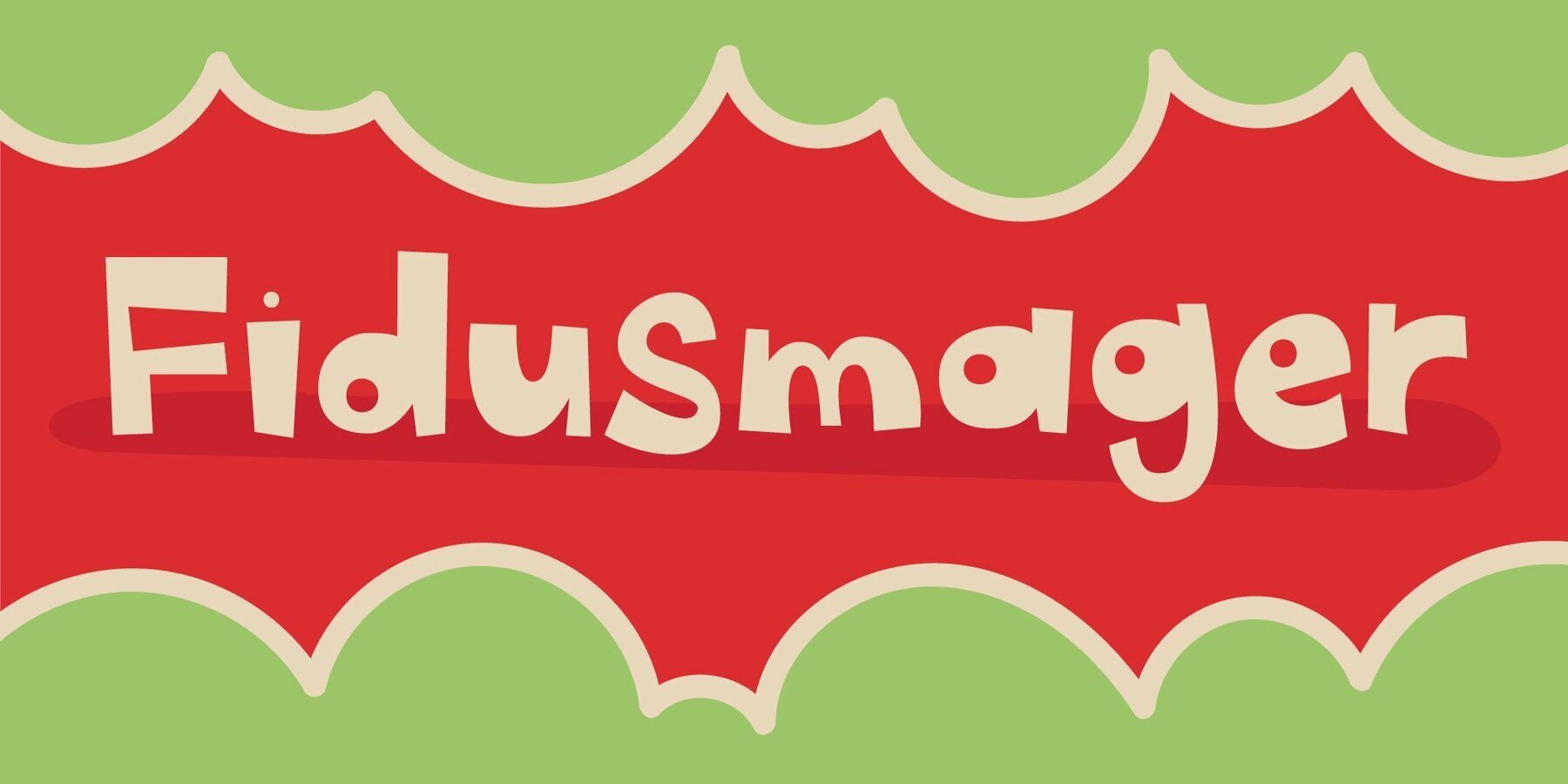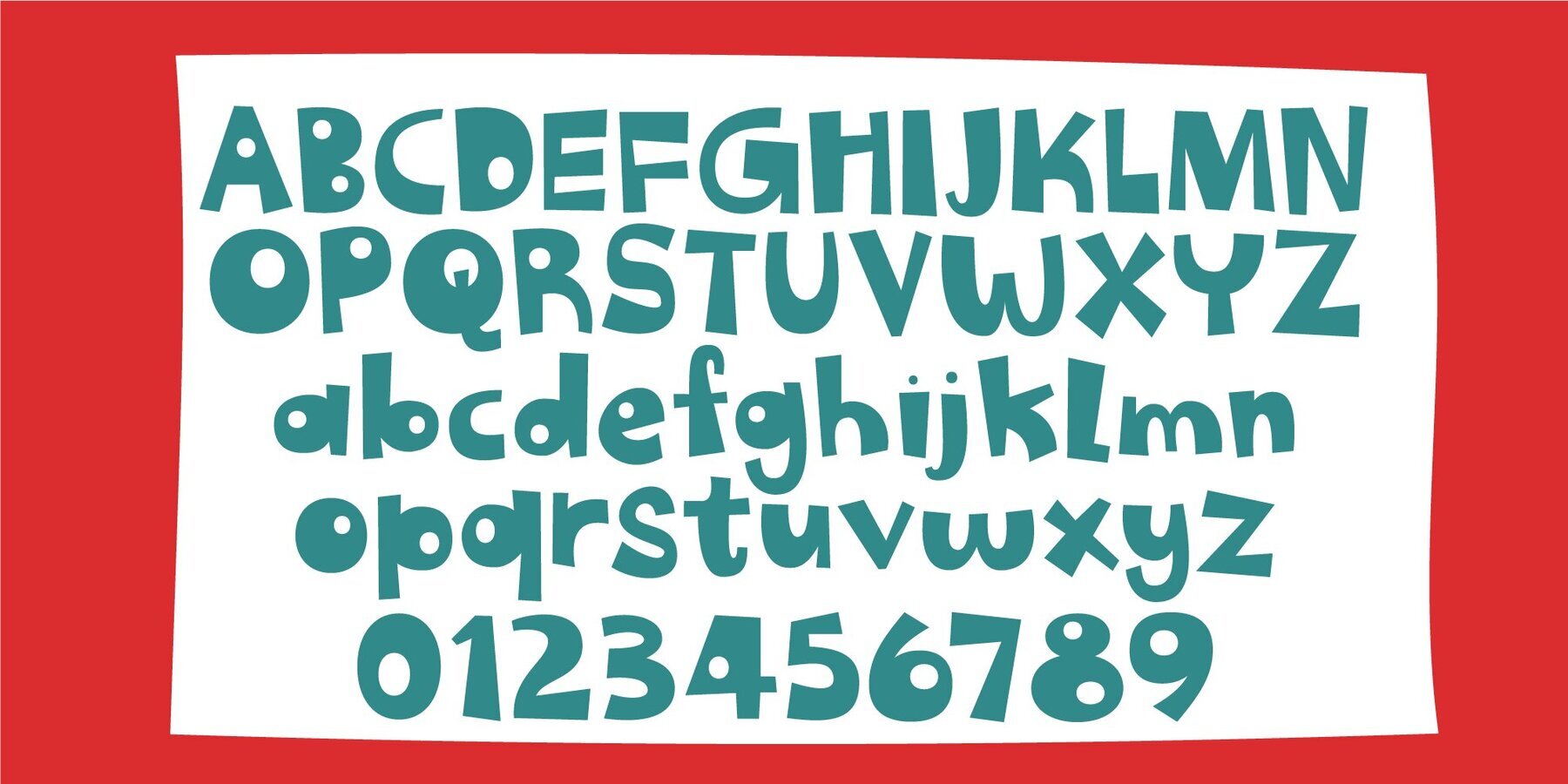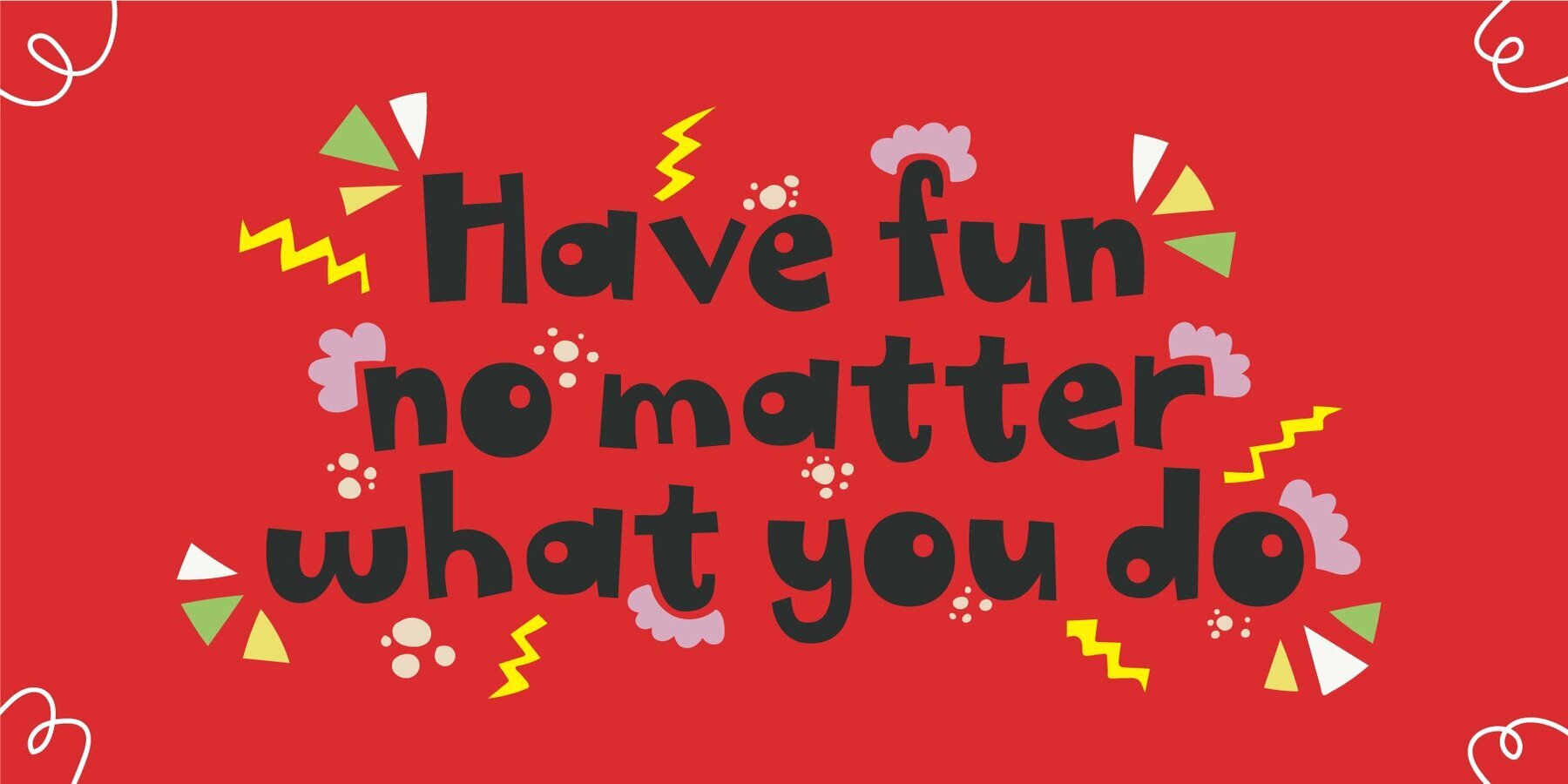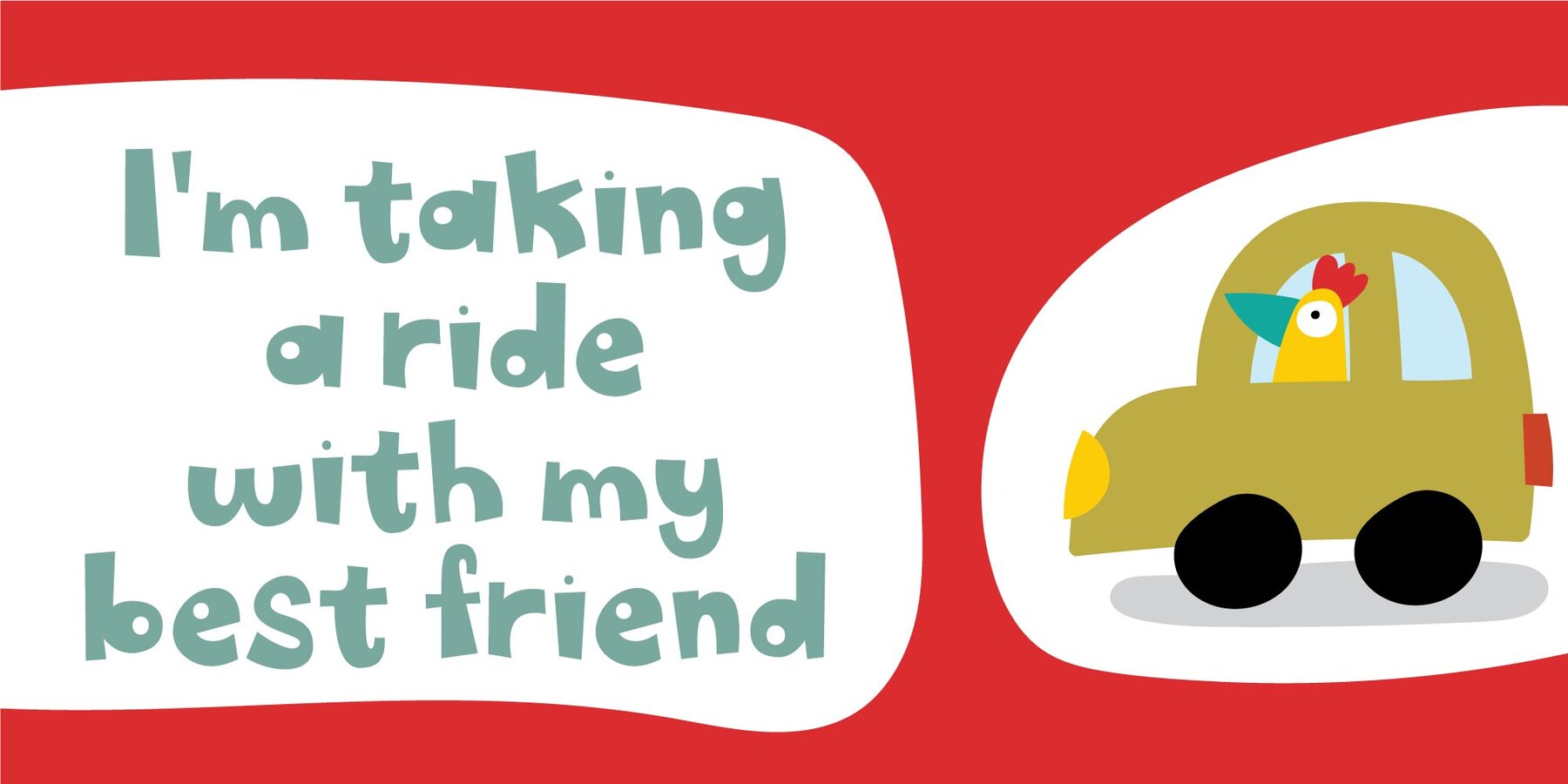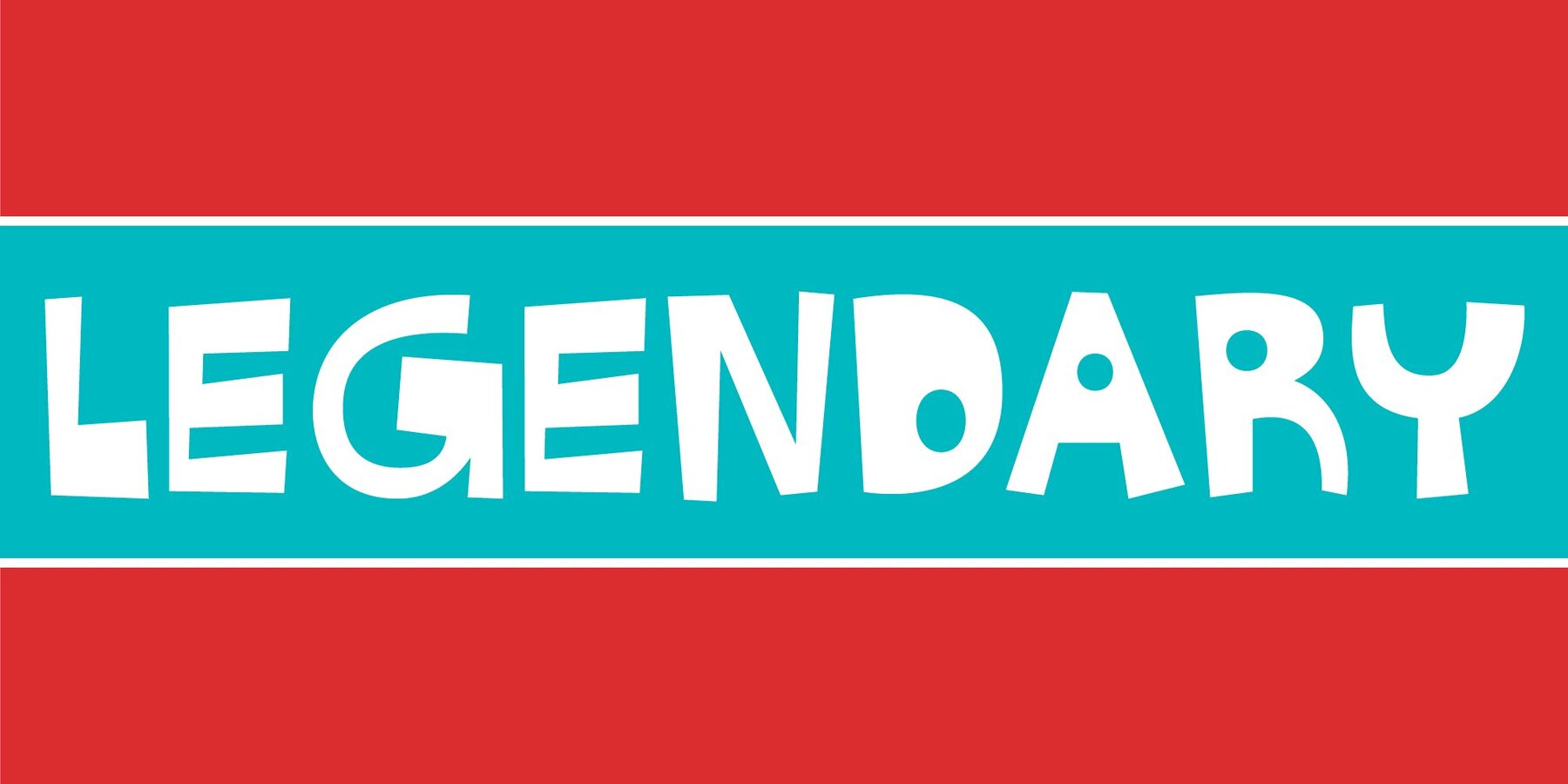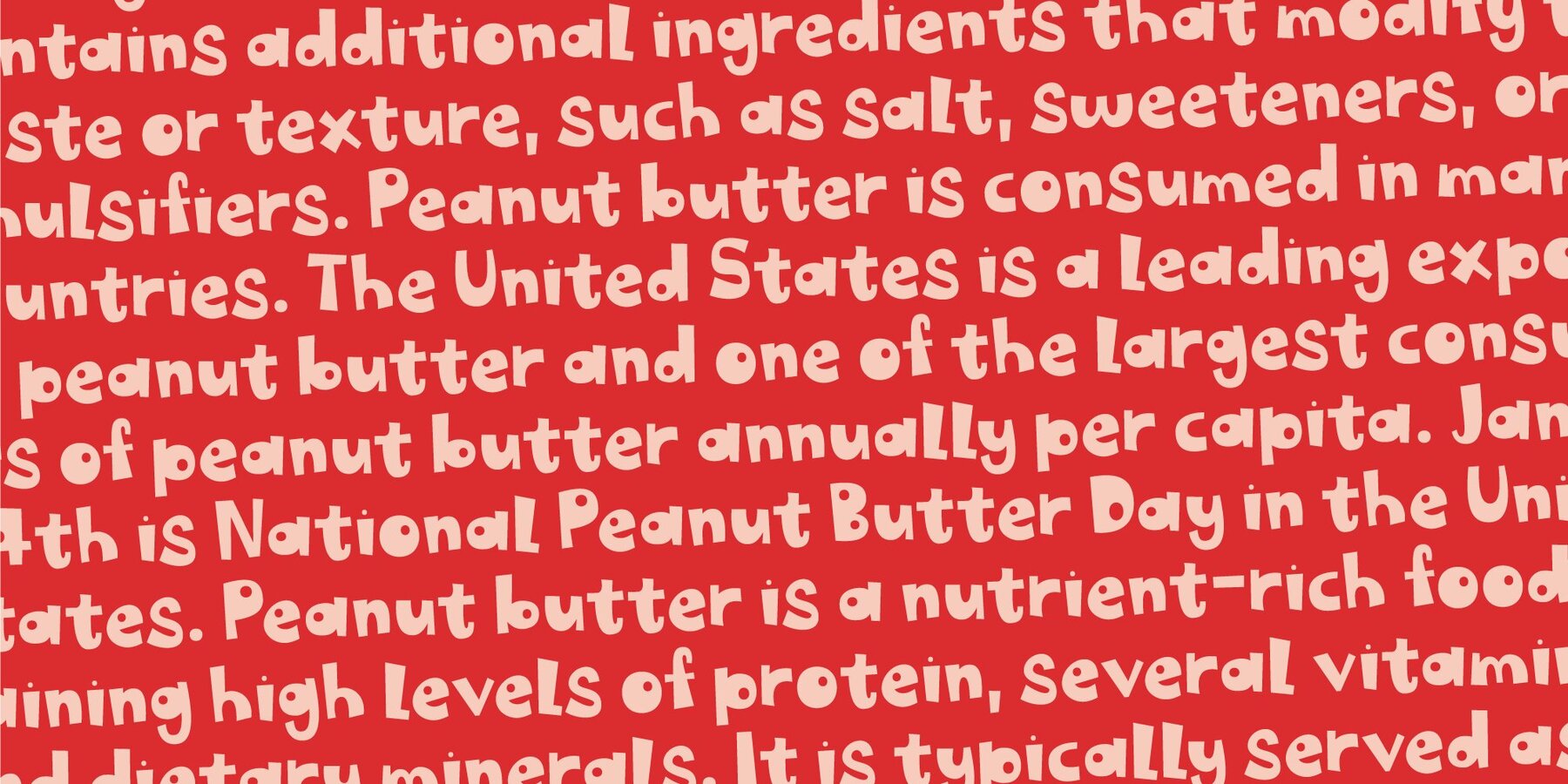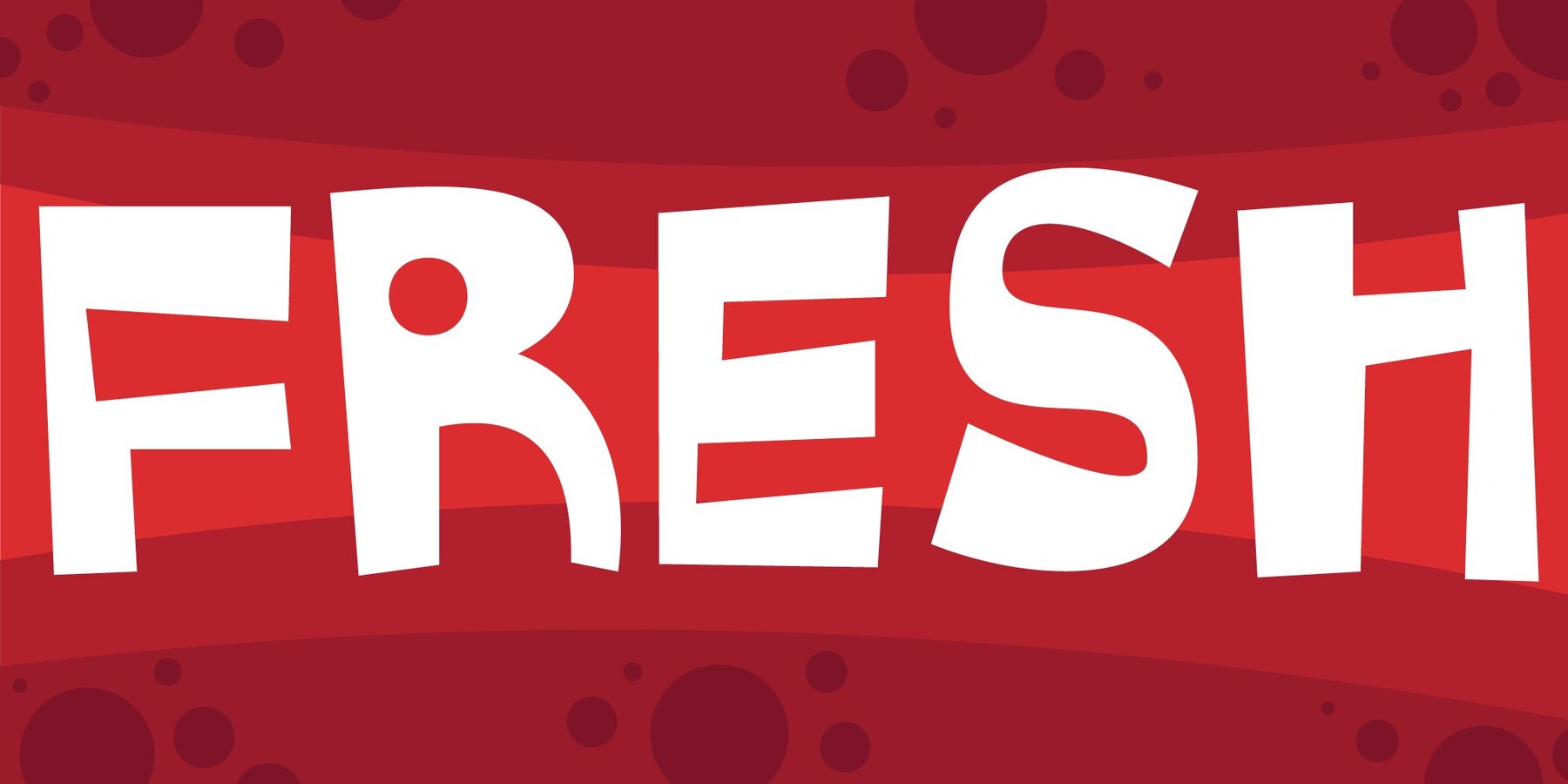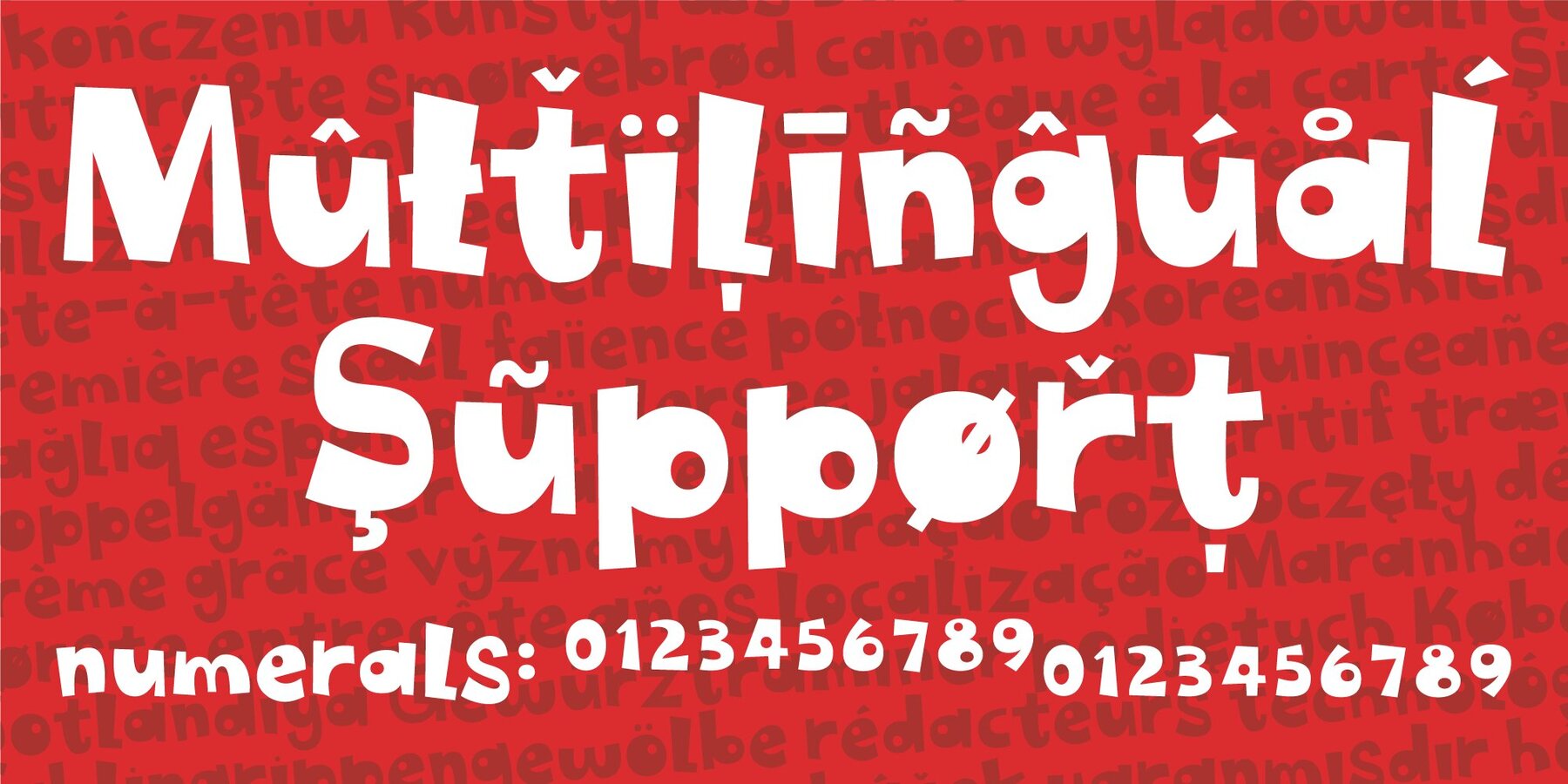
Fidusmager Font
This is definitely a font suitable for kids toys. The letters are legible, and at the same time totally wacky! Kinda like what a kids toy should be! Fidusmager started out as a handdrawn, slightly rugged looking fon. However I ended up manually tracing each letter in order to have those smooth lines. By the way, Fidusmager is danish and actually means someone who’ll trick you - but as a kid I didn’t know that, and found that it most likely was something positive! :)